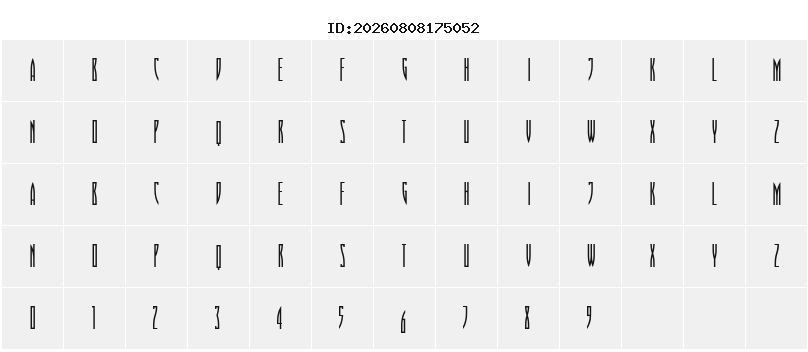
• Font Name: Playoff
• Font Style: Display
• Full Font Name: Playoff Display
• Designer: HENRIavecunK.
• Description: Playoff Display is a font designed by HENRIavecunK in 2016.
About Playoff.ttf
Playoff.ttf is a modern, elegant sans-serif font designed for ultimate readability and visual harmony. Perfect for branding, headlines, web design, and print materials.